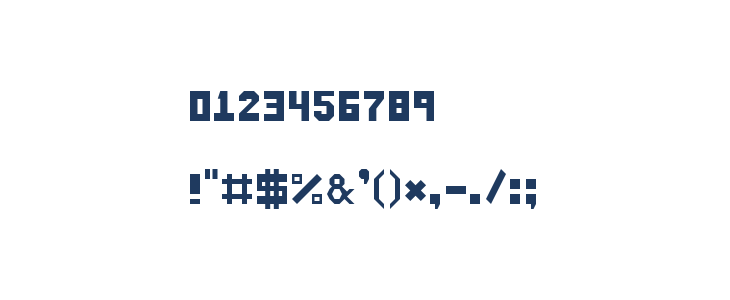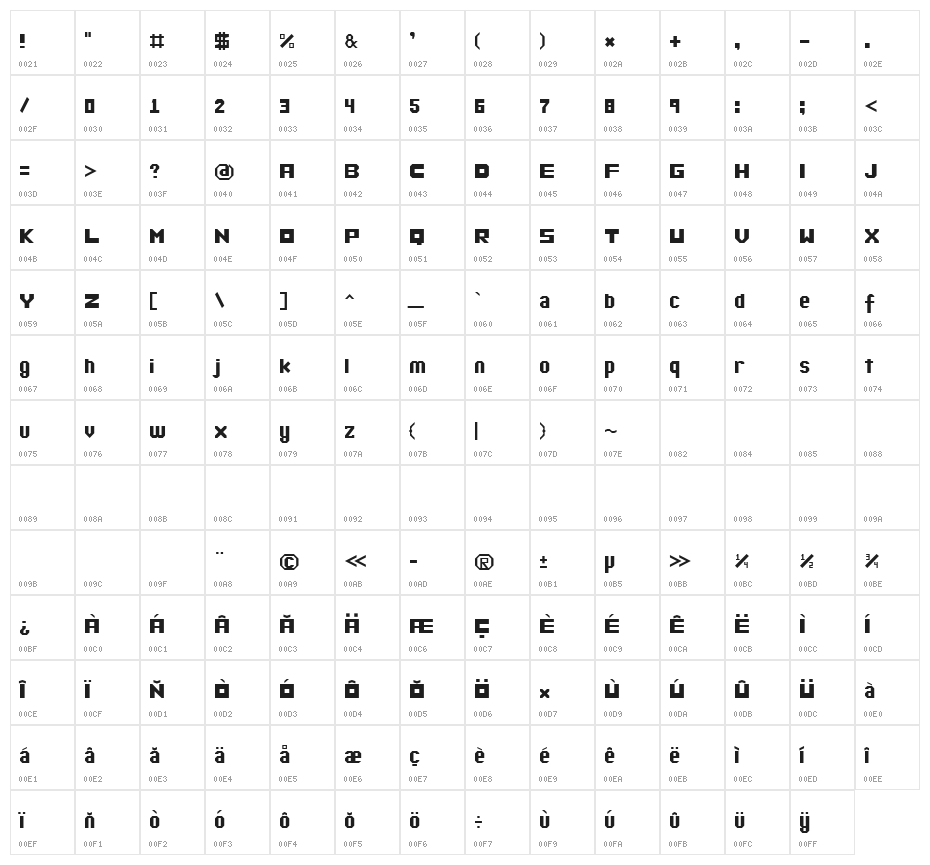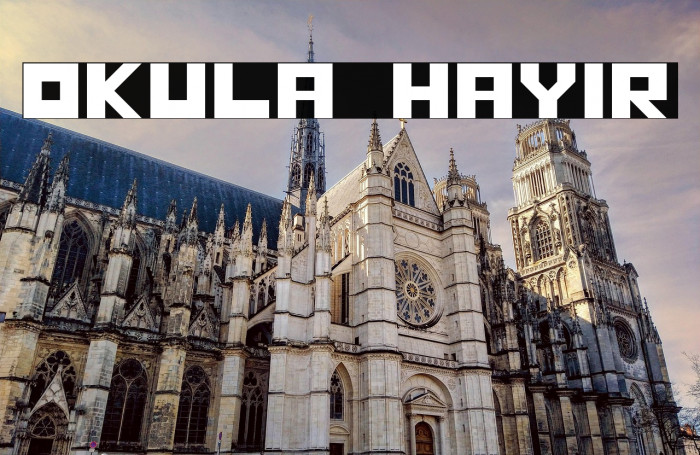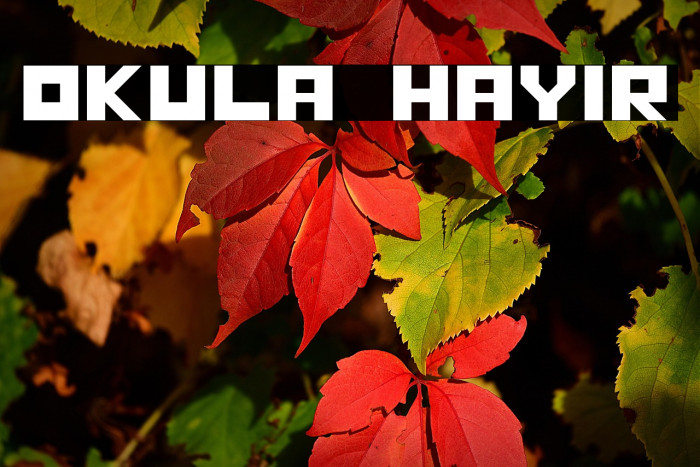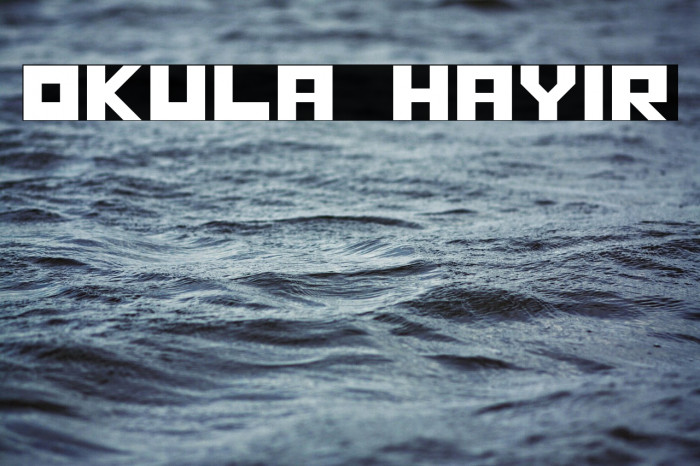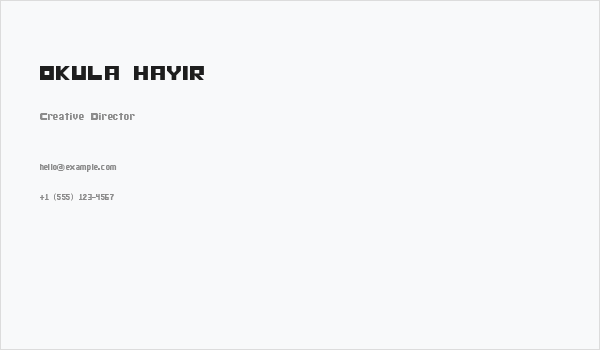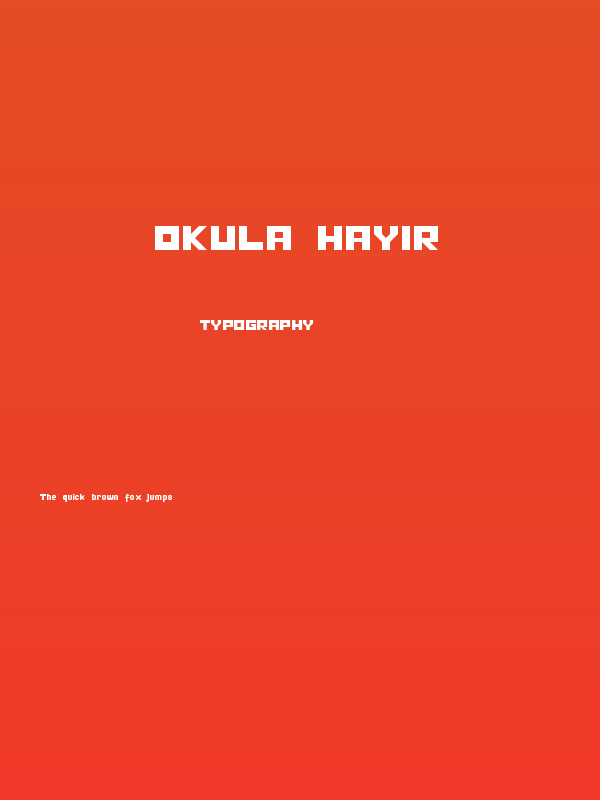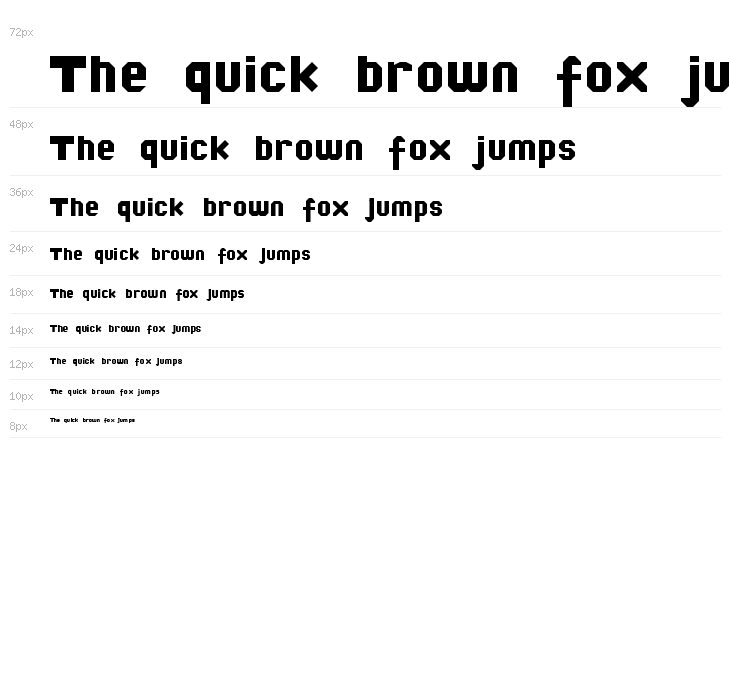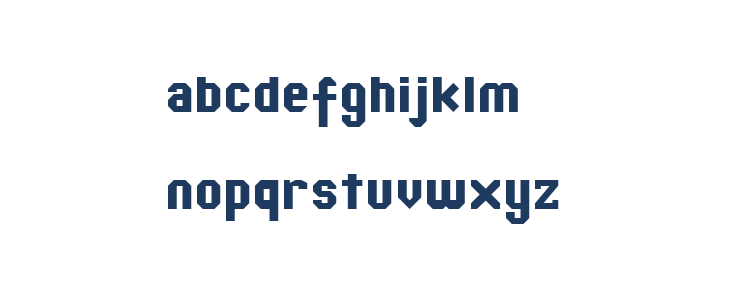
OKULA HAYIR Font
OKULA HAYIR Description
This font features a bold, geometric design with sharp angles and a strong presence. The uppercase letters are blocky and uniform, creating a sense of stability and strength. The lowercase letters maintain the geometric style but with slightly softer edges, offering a balance between rigidity and readability. Numbers and special characters are crafted with the same boldness, ensuring consistency across all elements. The overall appearance is modern and assertive, making it suitable for impactful visual statements.
| Proposed Projects | Ideal for branding, posters, headlines, and any project requiring a strong visual impact. |